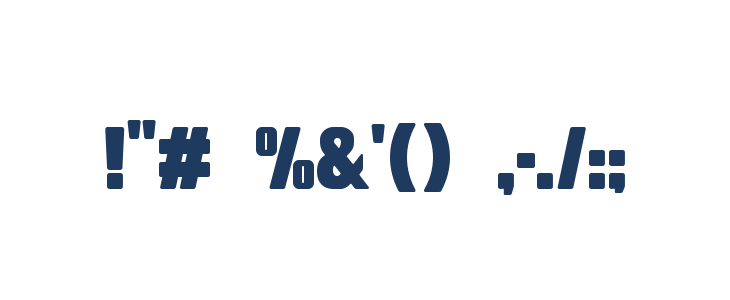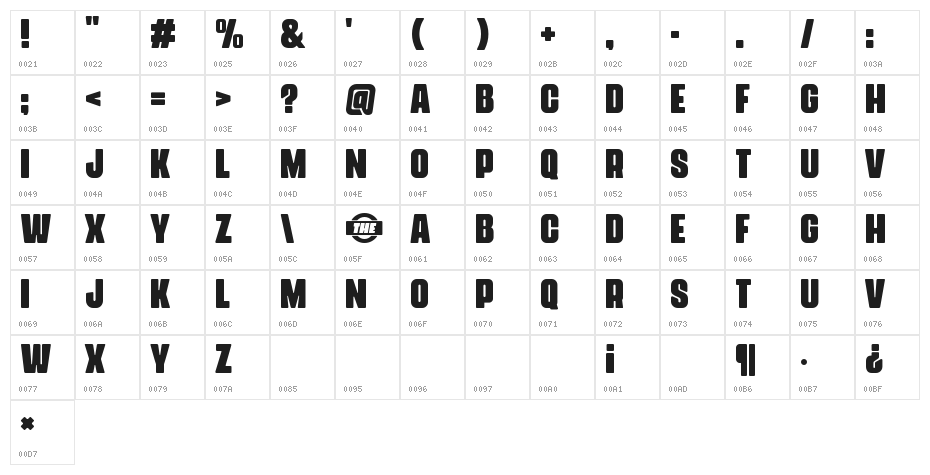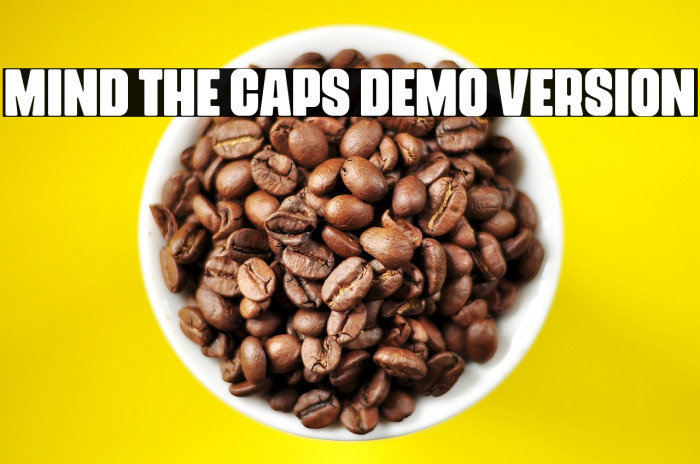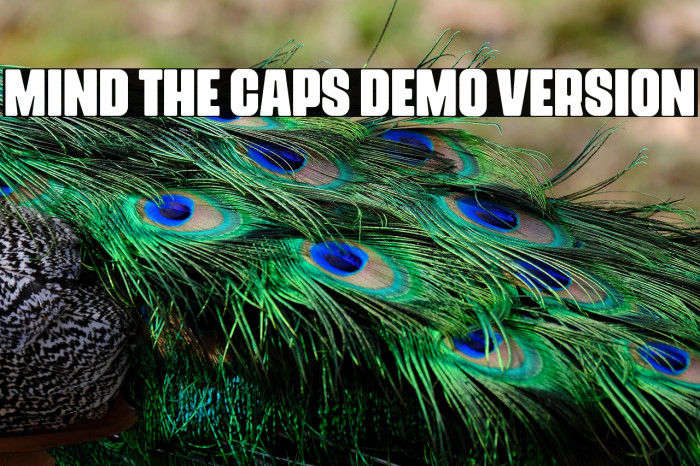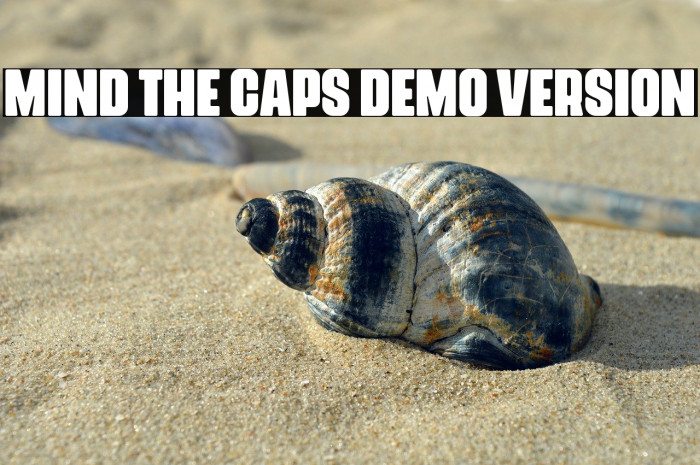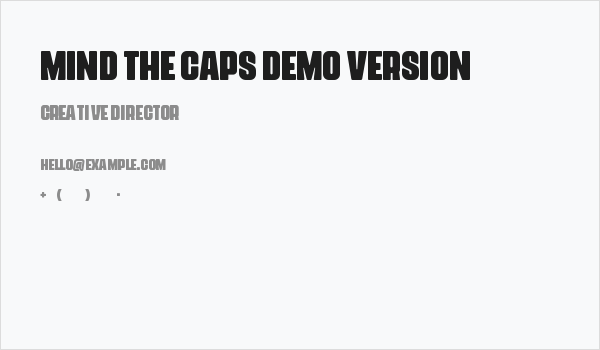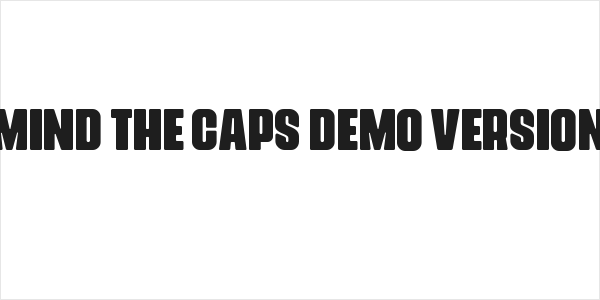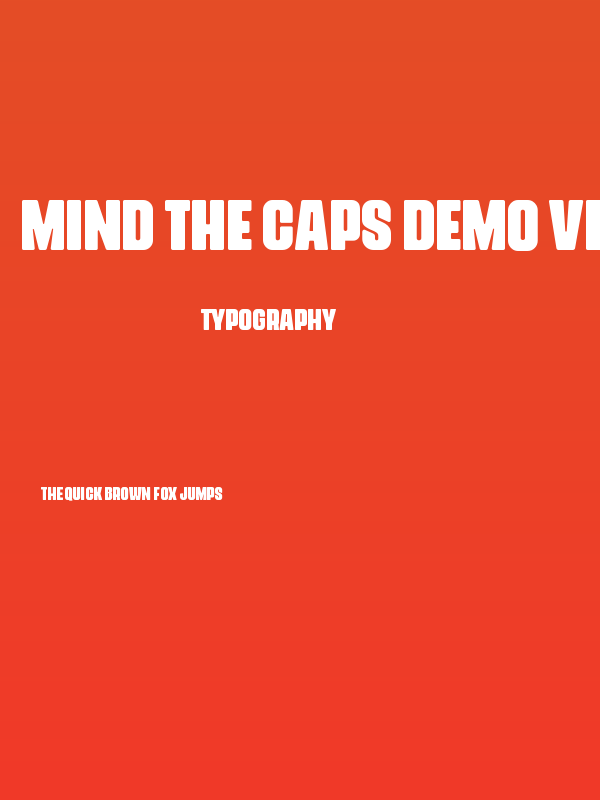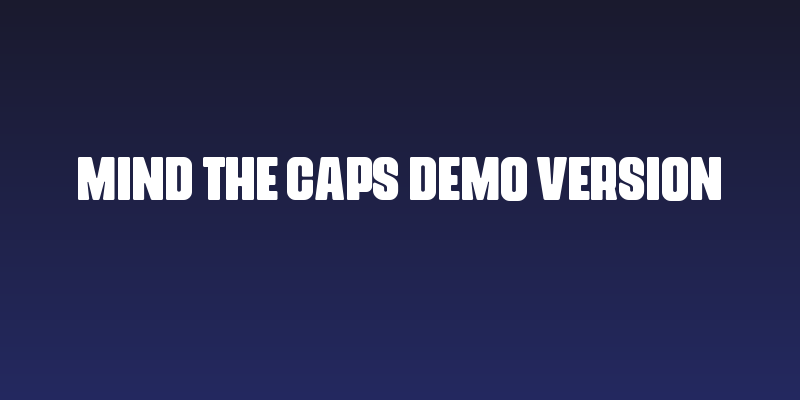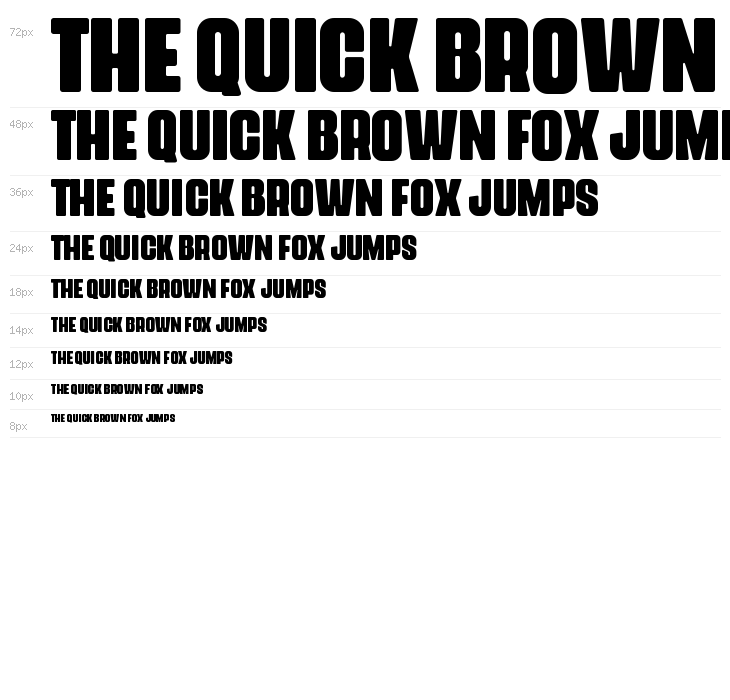
Mind The Caps DEMO VERSION Font
Mind The Caps DEMO VERSION Description
This font is a bold, impactful typeface characterized by its heavy weight and strong presence. The letters are uniformly thick, with minimal contrast in stroke width, giving it a powerful and assertive appearance. The uppercase letters are particularly striking, with a blocky, geometric style that commands attention. The font's design is clean and straightforward, making it suitable for headlines and titles where maximum visibility is desired. The spacing between characters is tight, enhancing its compact and cohesive look. This typeface is ideal for projects that require a bold statement, such as posters, banners, and branding materials.
| Use Case | Headlines |
| Proposed Projects | Ideal for posters, banners, branding materials, and any project requiring a bold statement. |